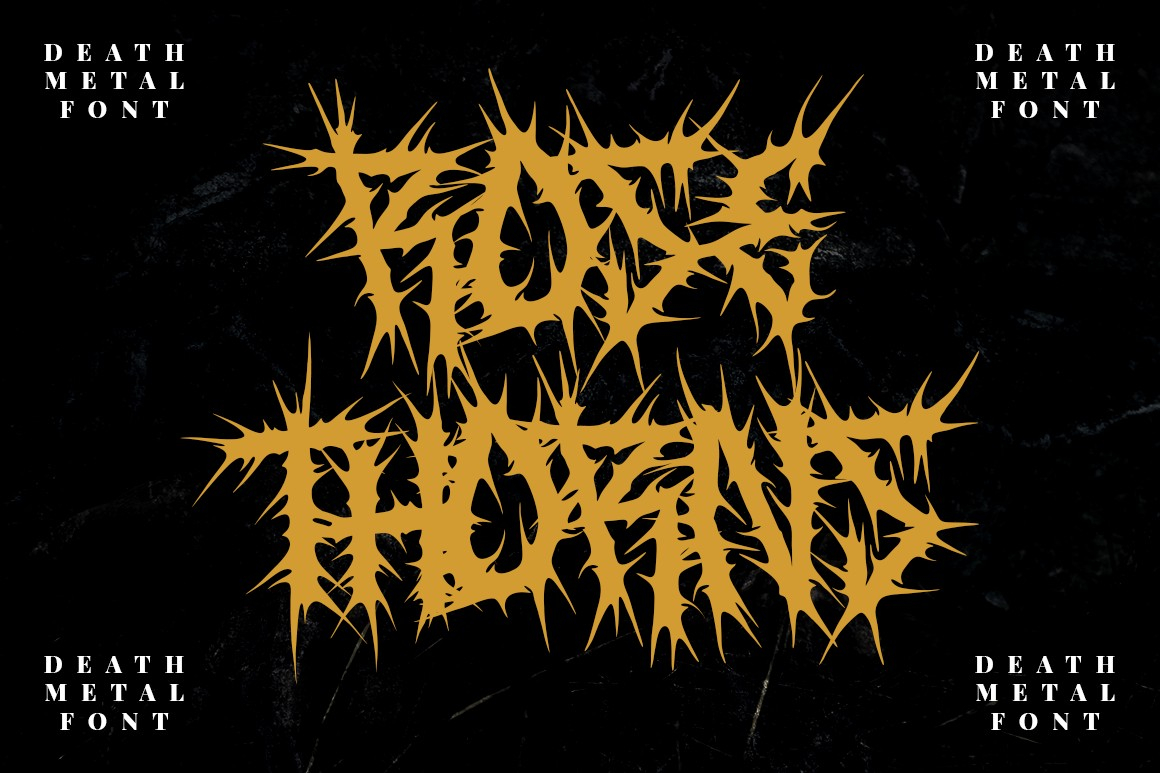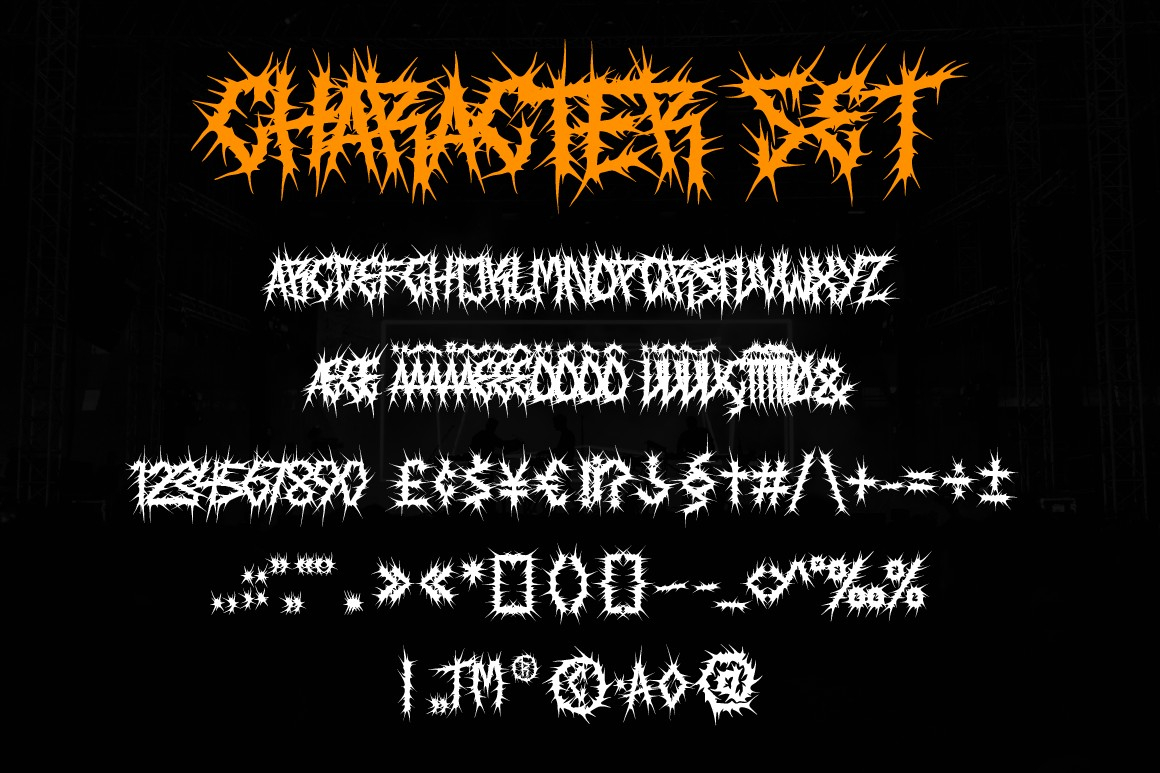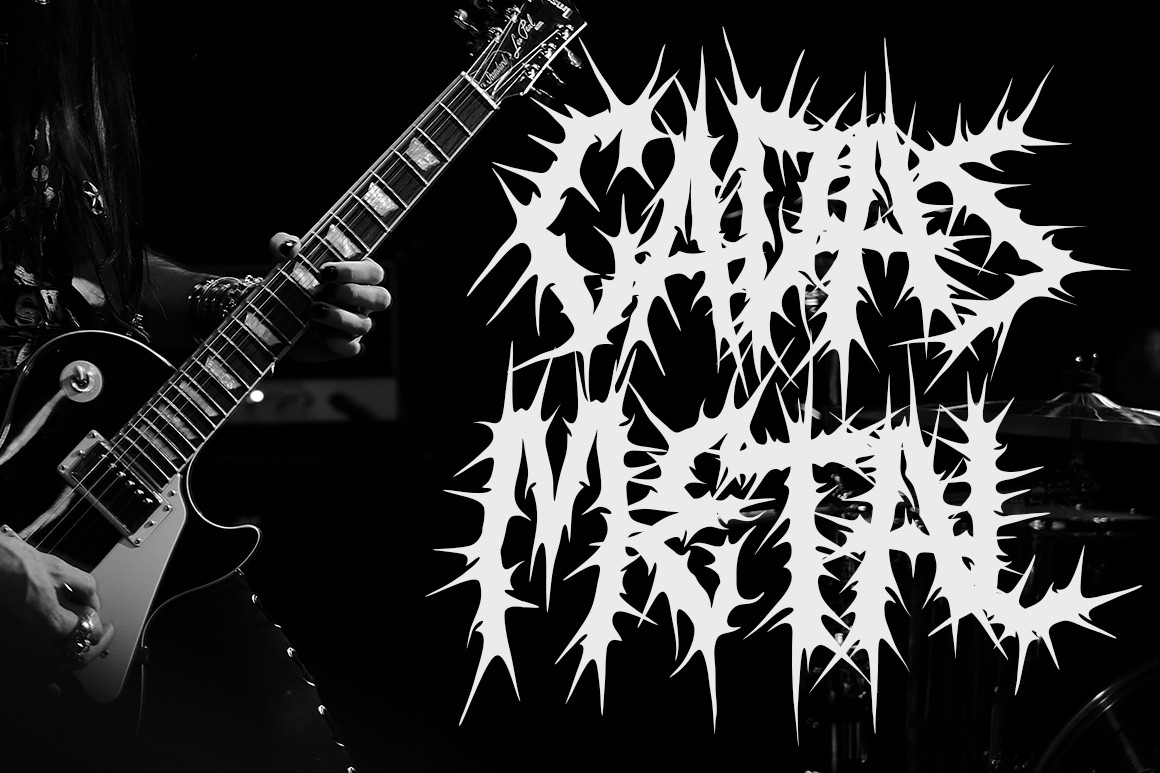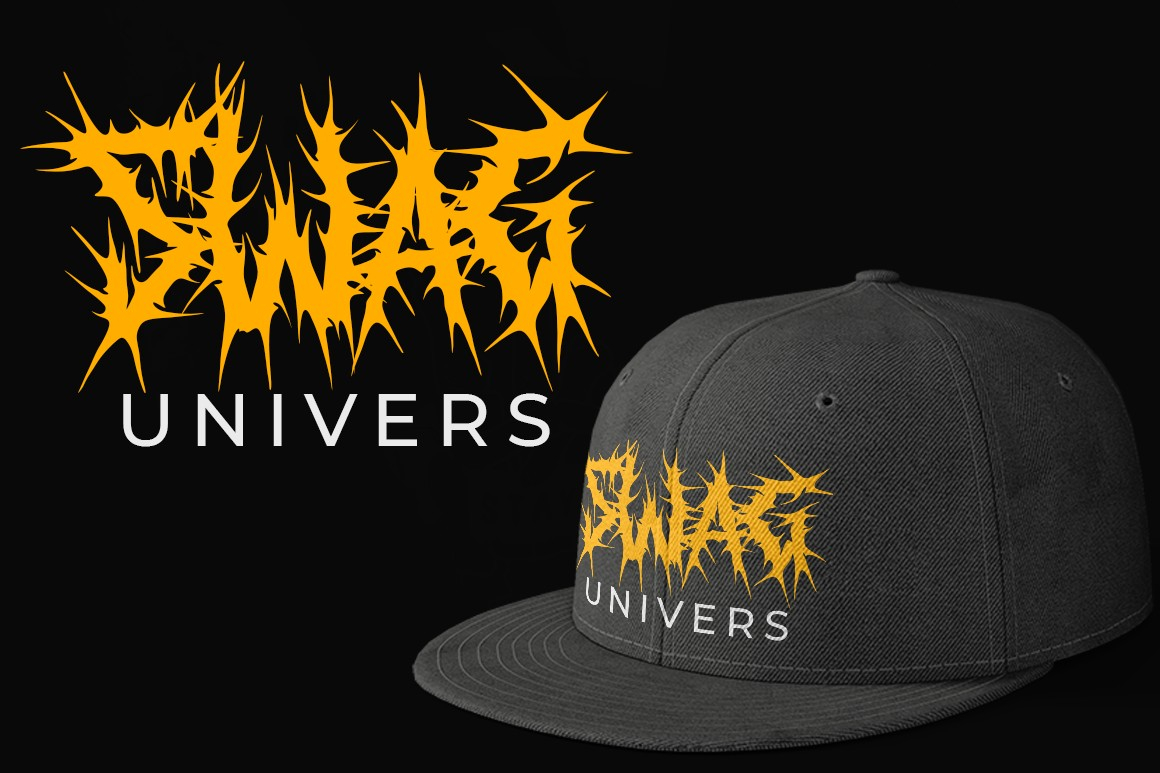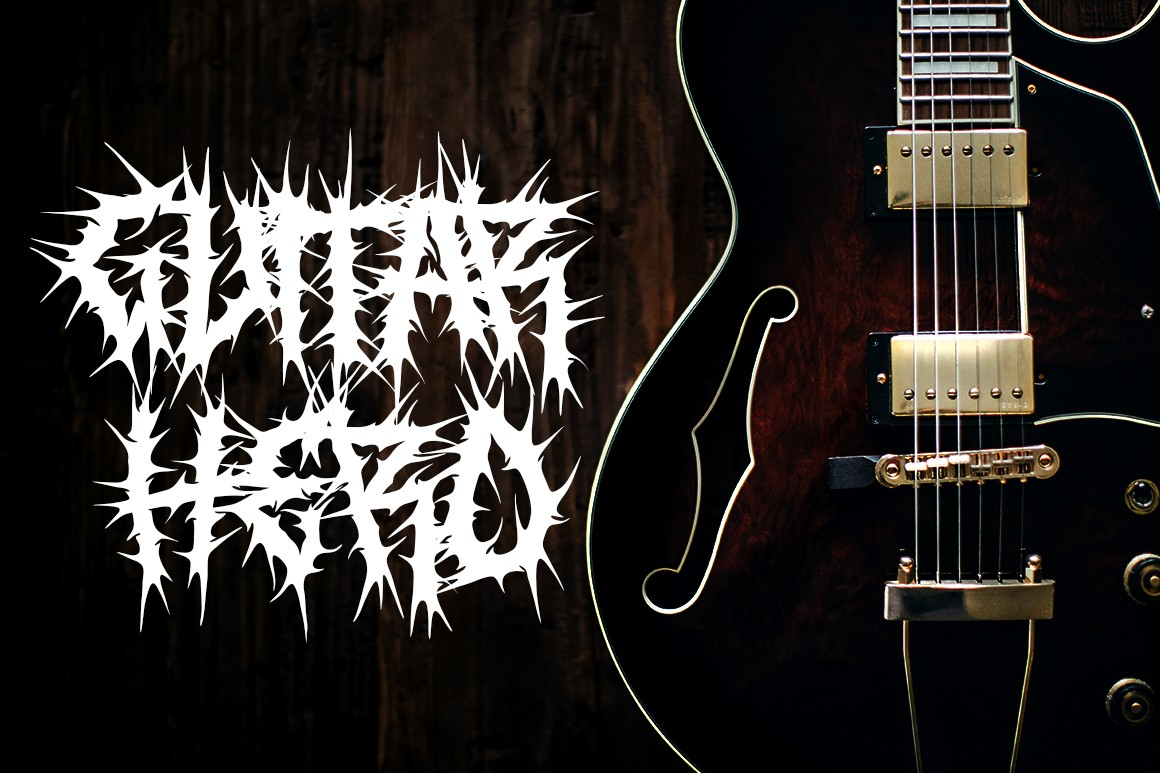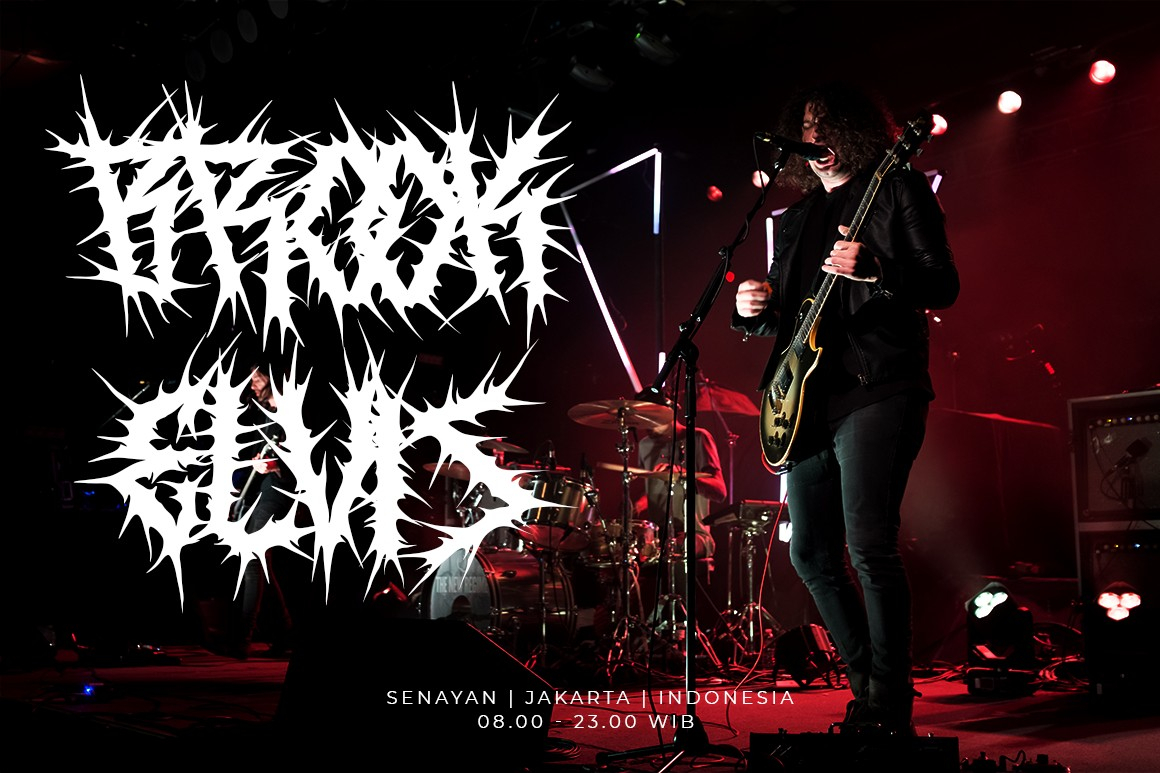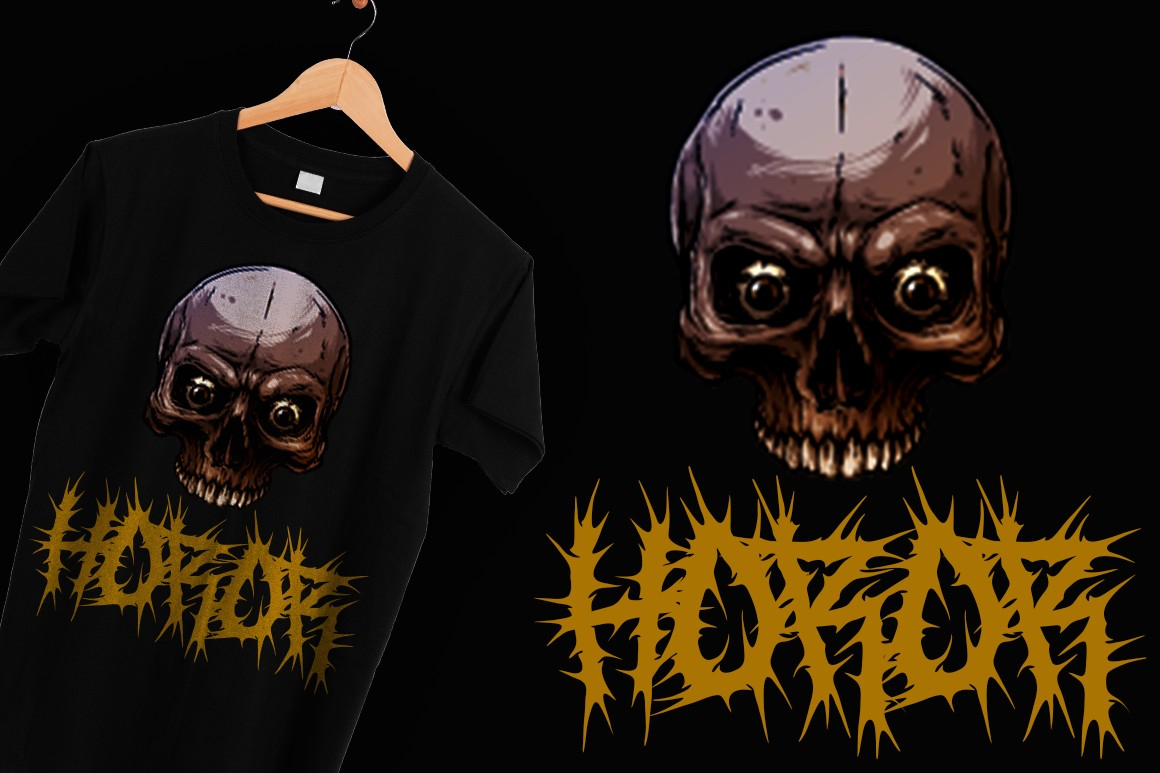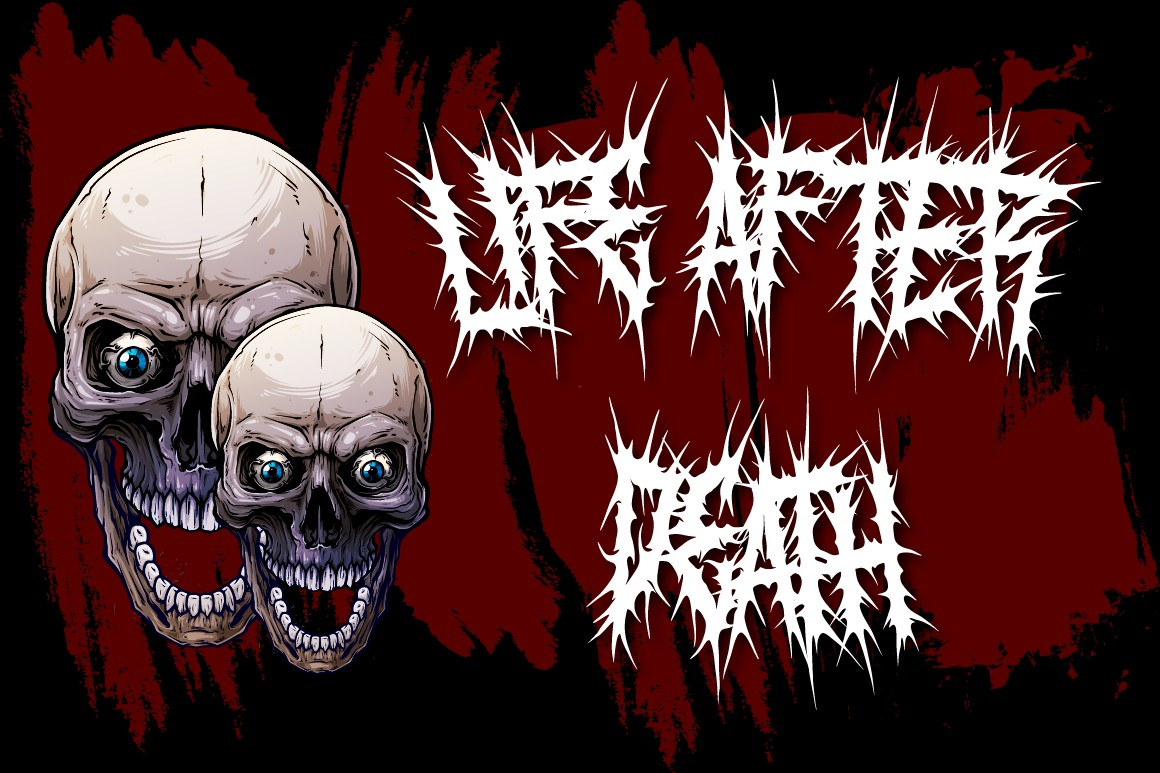
Rose Thorns Font
About Rose Thorns Font
Rose Thorns is an incredibly unique and dramatic looking blackletter font. Add this strong lettered font to your designs and make them stand out!